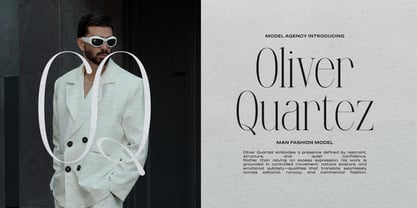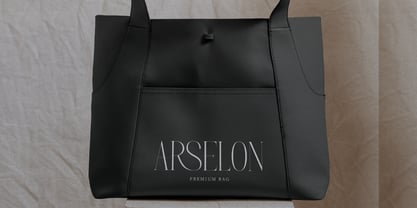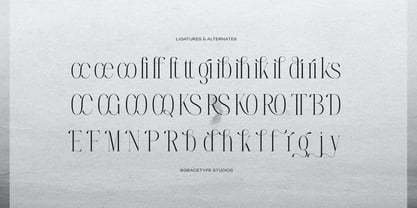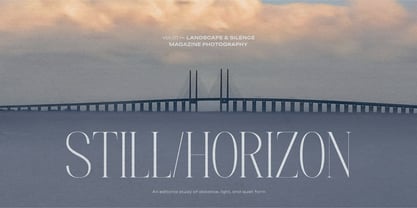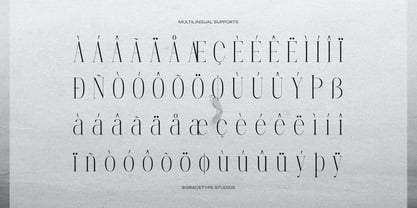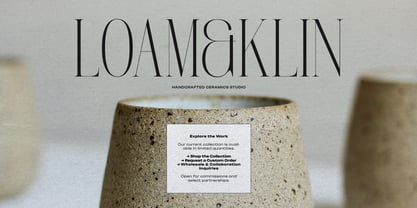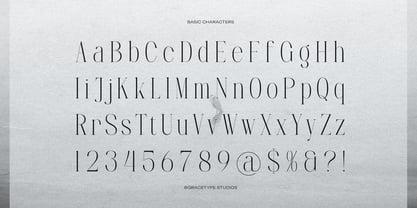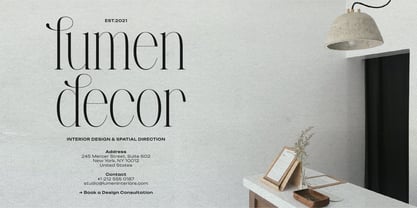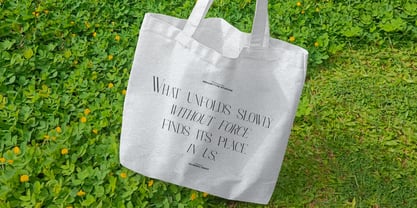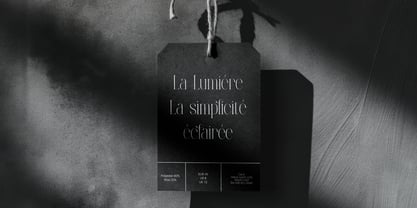
Furigale
by Tini Fitriani
Furigale | Classic Serif, from Gracetypestudio, suitable for any projects such as: logos, branding projects, homeware designs, product packaging, mugs, quotes, posters, shopping bags, t-shirts, book covers, name card, invitation cards, greeting cards, label, photography, watermark, special events, and all your other lovely projects that need a Serif taste.